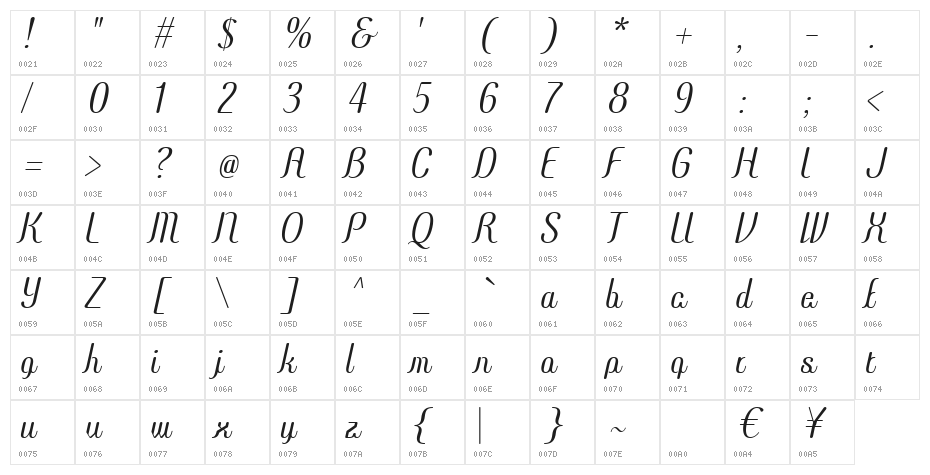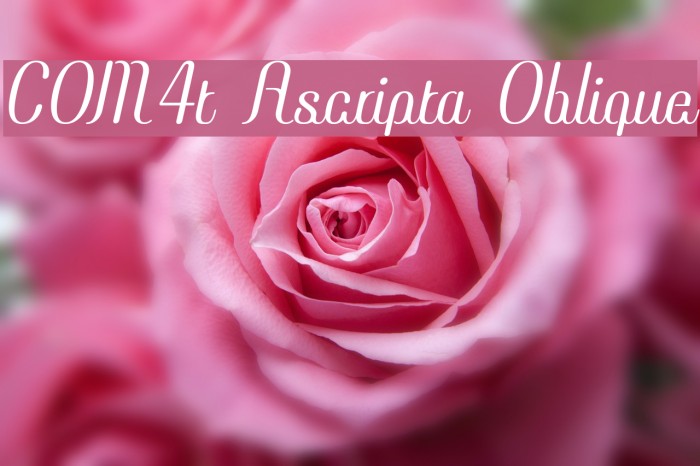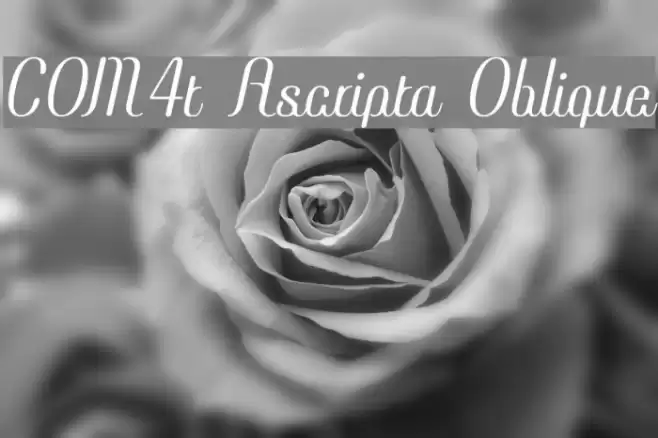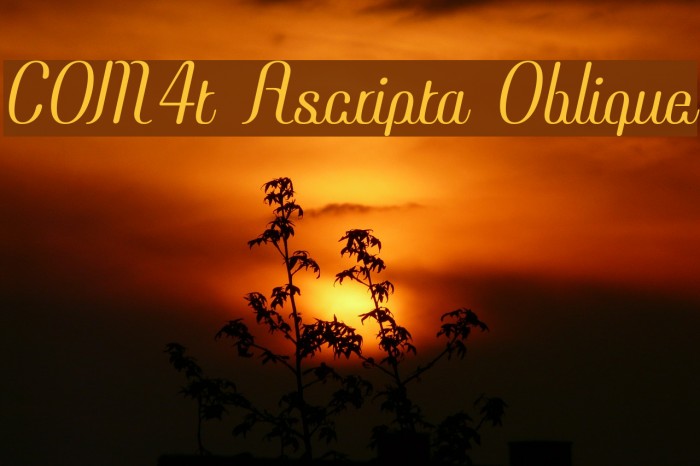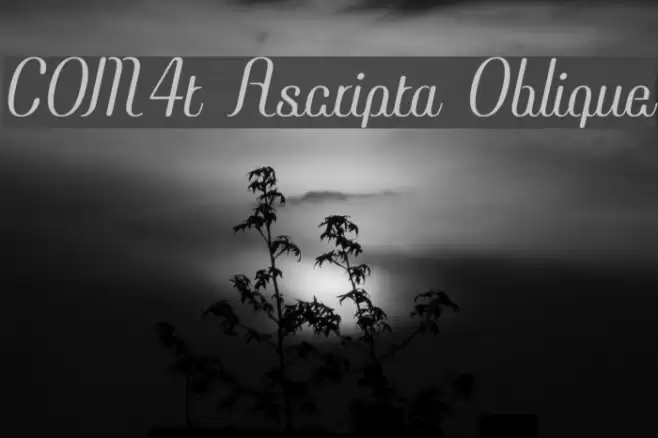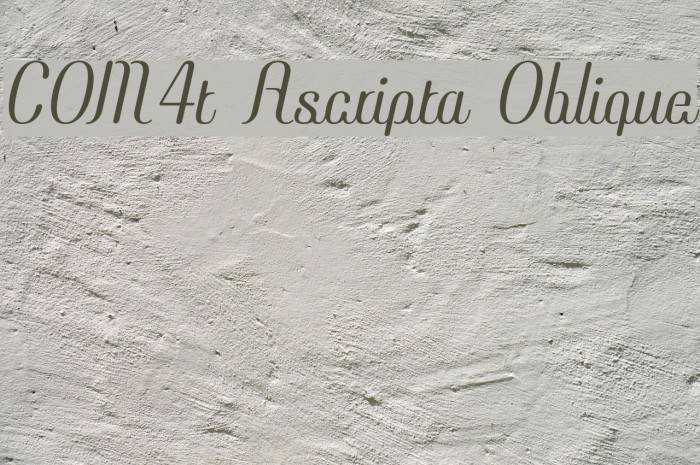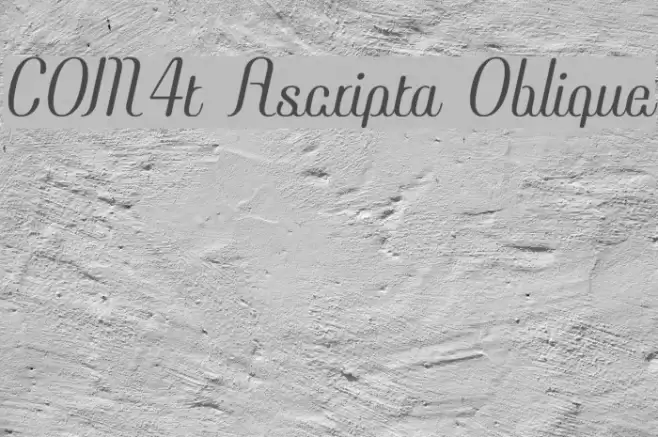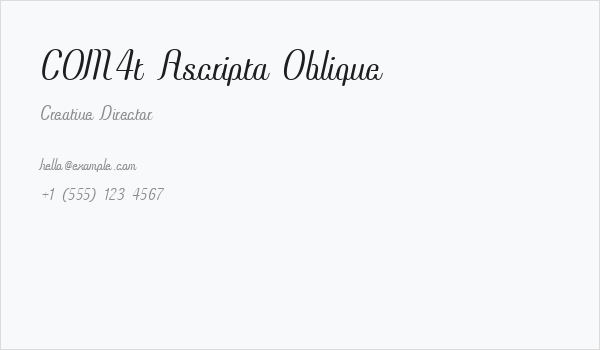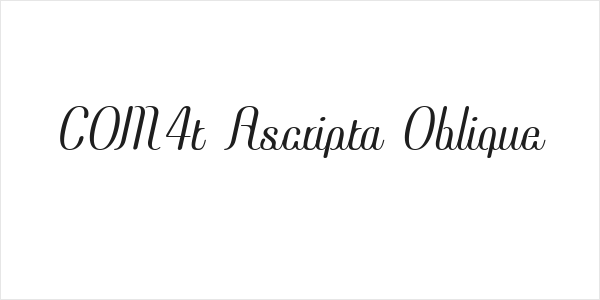
COM4t Ascripta Oblique Font
COM4t Ascripta Oblique Description
This font features an elegant and flowing script style, characterized by its oblique orientation and smooth, connected strokes. The uppercase letters are tall and slender, while the lowercase letters maintain a consistent flow, enhancing readability. The numerals are distinct and align well with the overall style, providing a harmonious appearance. Special characters are crafted with the same attention to detail, ensuring they complement the alphabetic characters. The font's design exudes a sense of sophistication and grace, making it suitable for formal and decorative applications.
| Proposed Projects | Ideal for wedding invitations, elegant branding, greeting cards, and sophisticated logo designs. |